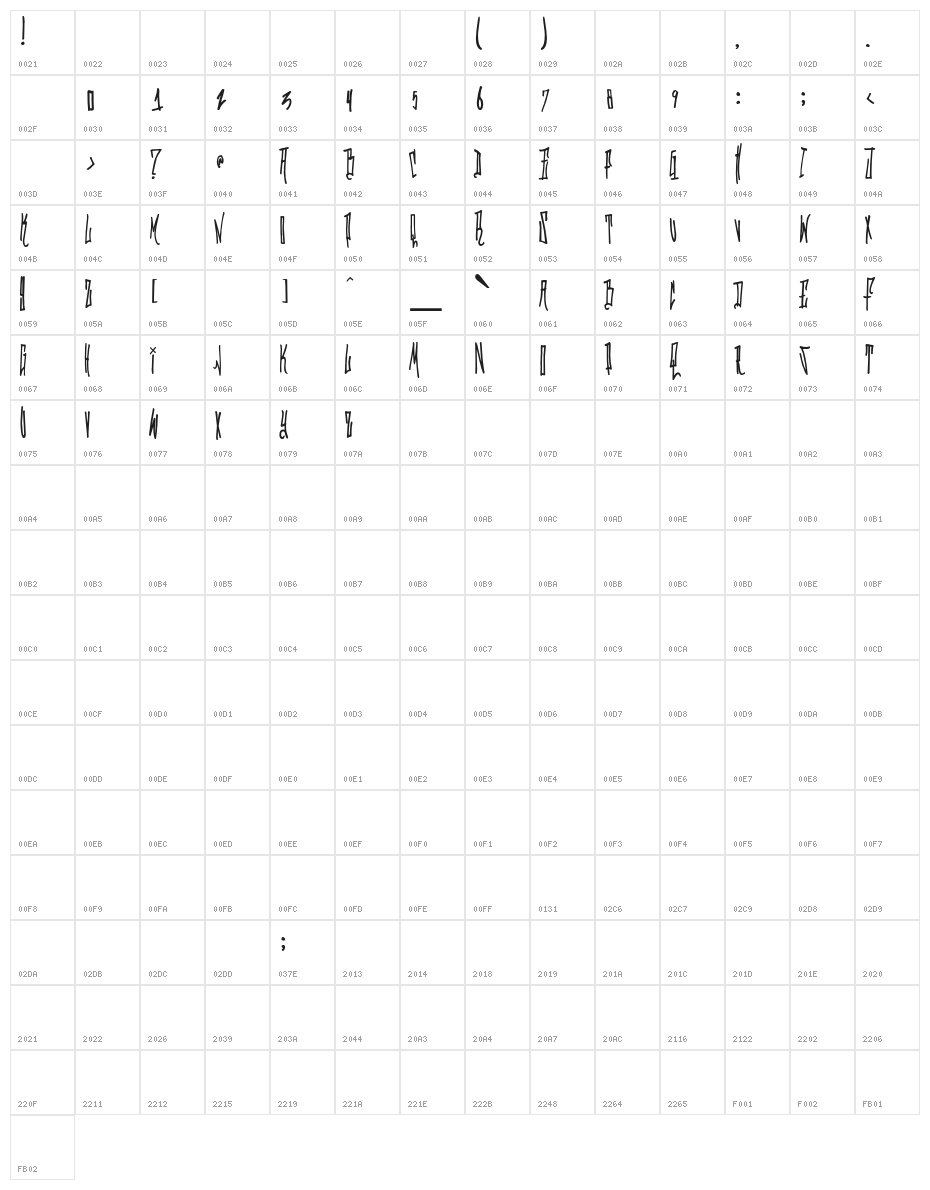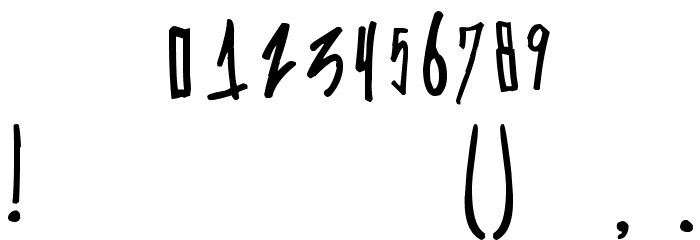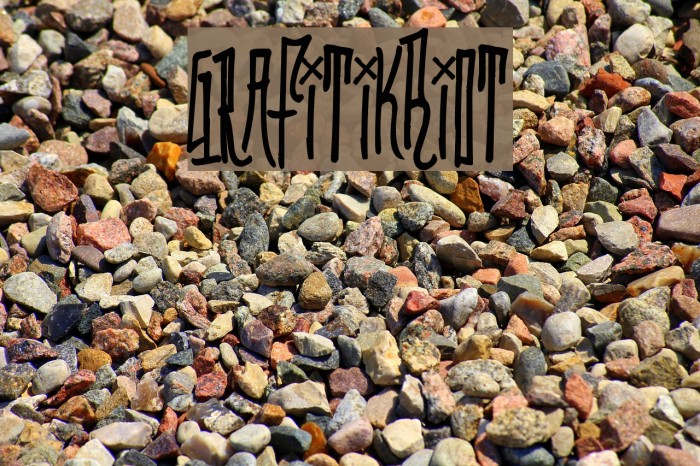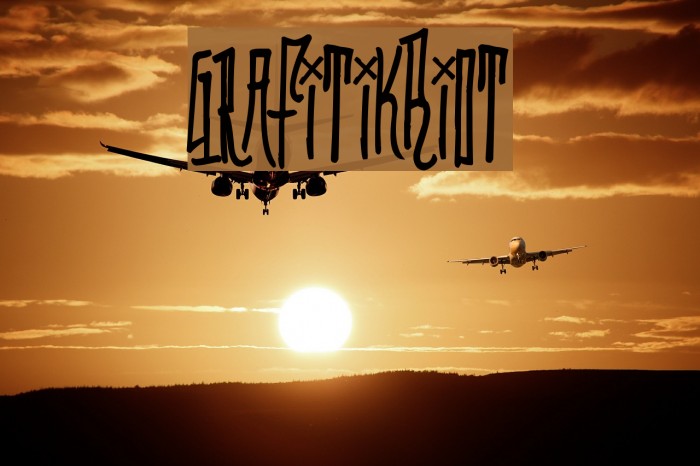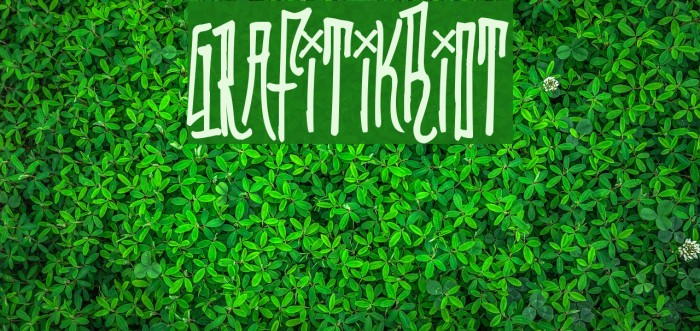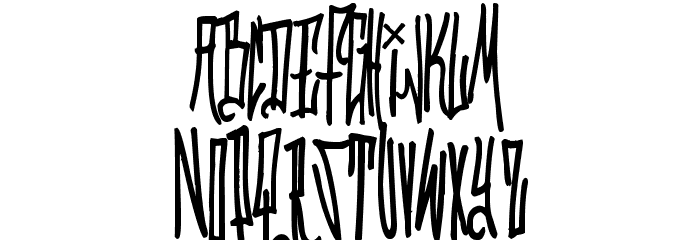
GrafitikRiot Font
GrafitikRiot Description
This font exudes a dynamic and rebellious energy, reminiscent of urban graffiti art. The characters are elongated and angular, with sharp edges and a sense of movement that captures the eye. The uppercase and lowercase letters share a consistent style, maintaining a cohesive look throughout. Numbers and special characters are crafted with the same edgy flair, making them stand out. The overall appearance is bold and expressive, perfect for making a statement in any design project.
| Width | Condensed |
| Overall Style | Modern, Urban |
| Use Case | Logos, Headlines, Posters |
| Proposed Projects | Ideal for street art designs, urban-themed posters, music album covers, and edgy branding projects. |